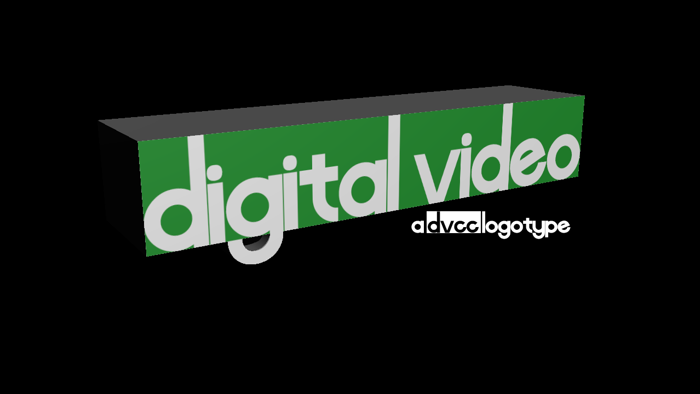
Digital Video Font
The font "Digital Video" almost is exactly like the letters "C", "D", and "V" in the logo. This font was also modeled off of "Lyons" made by Daniel P. Lyons.
@629Lyric Well, now I added the numbers & symbols. Click "View All" next to "80 characters -" to see.
@629Lyric What the heck, the numbers are Microsoft Sans Serif.
@629Lyric I tried updating the font, but it only shows numbers and symbols in Microsoft Sans Serif.
@629Lyric Now it worked!
Looks like the new Mooonpig font!
You gonna add numbers and other things like that?